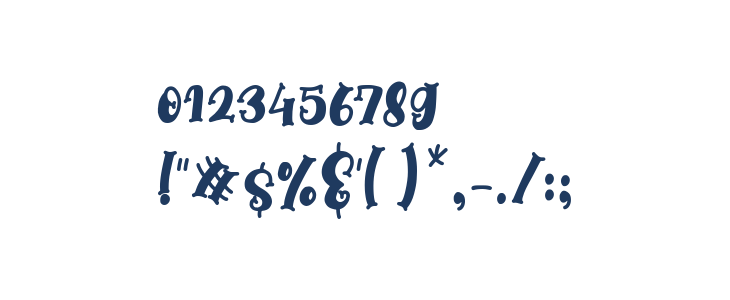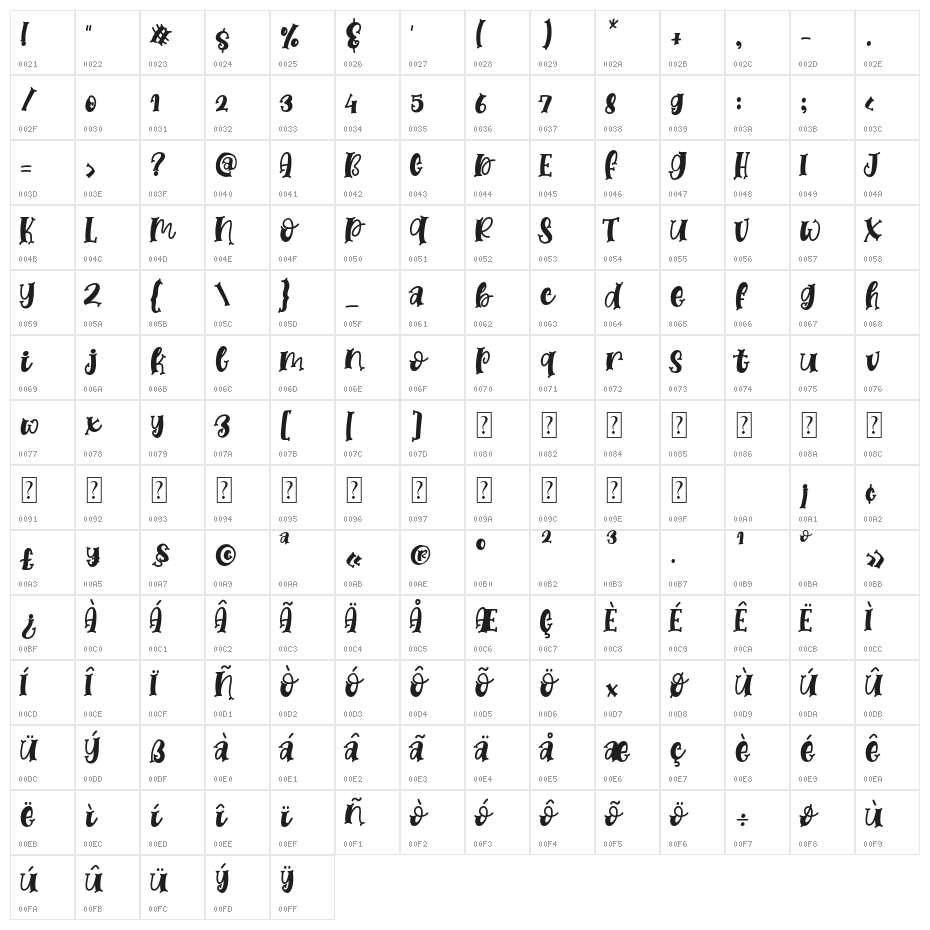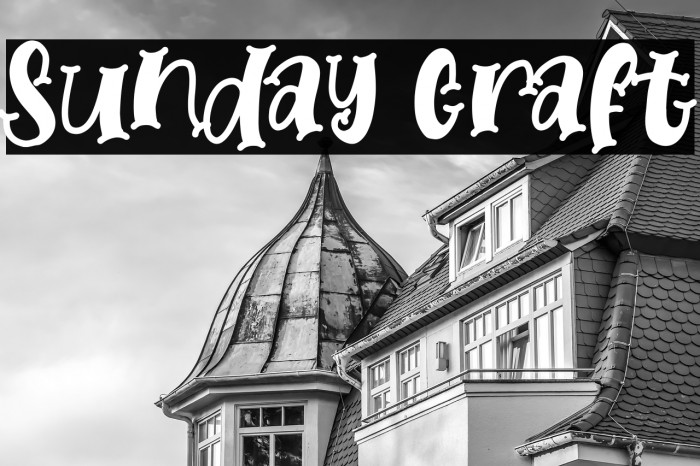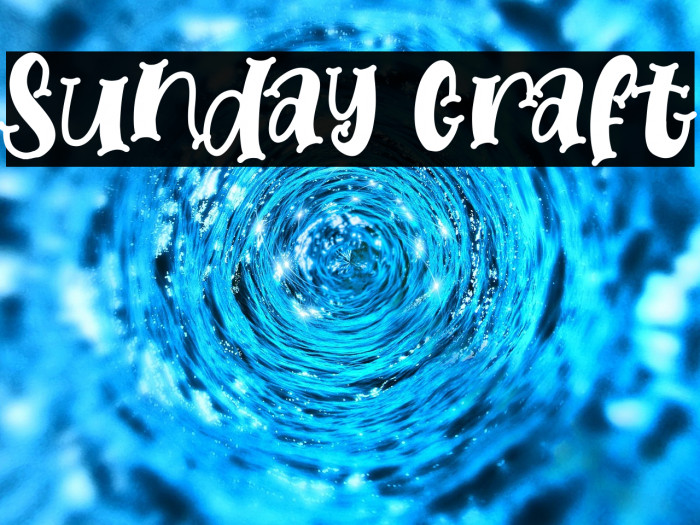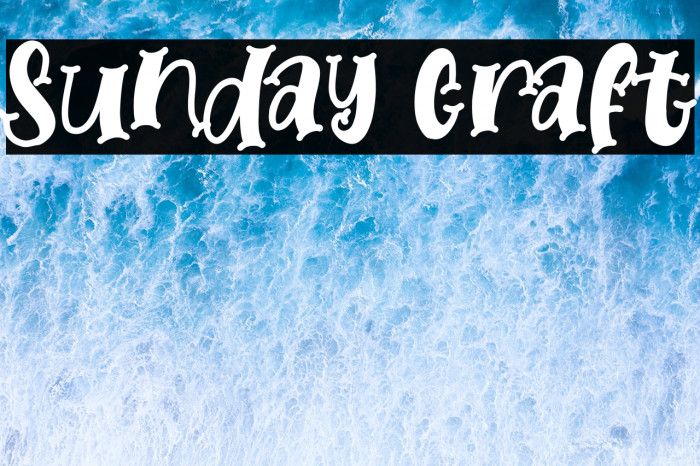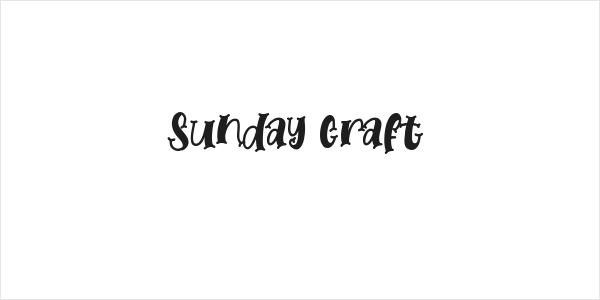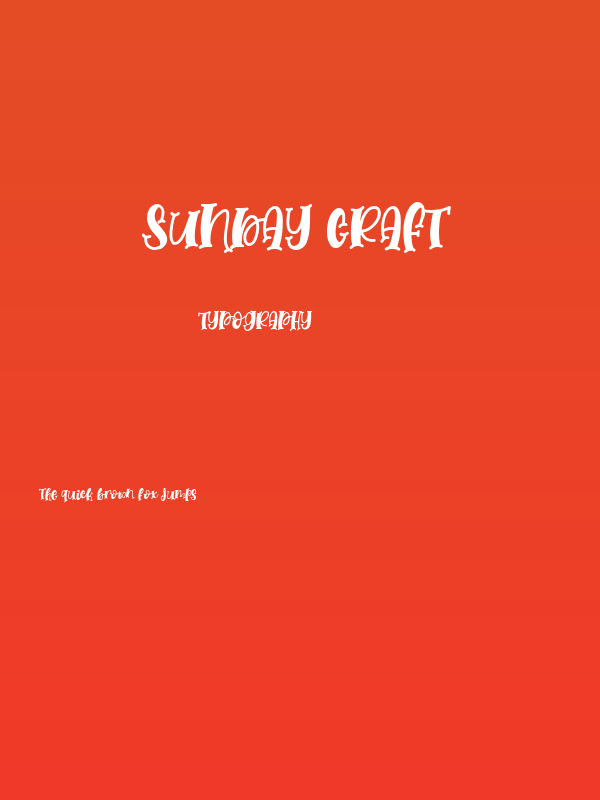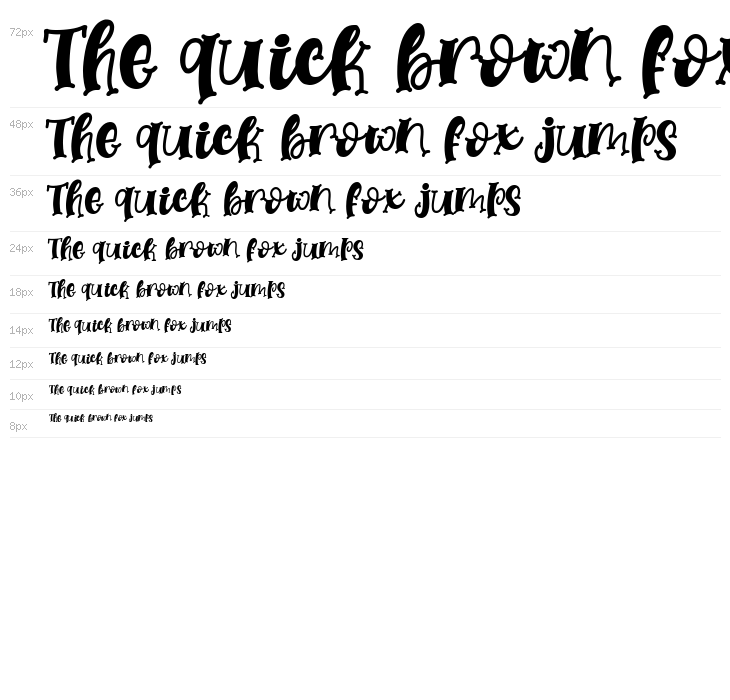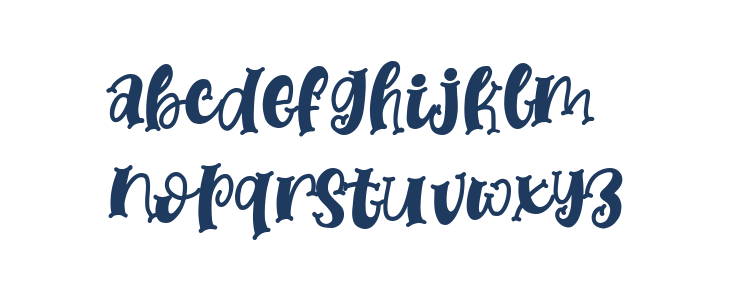
Sunday Craft Font
Sunday Craft Description
This font features a playful and whimsical style with a hand-drawn appearance. The letters are bold and have a slightly irregular form, giving them a lively and dynamic feel. The uppercase and lowercase letters maintain a consistent style, with some characters having unique flourishes and curves. The numbers and special characters are designed to match the overall aesthetic, making them suitable for creative and informal projects. The font's bold strokes and decorative elements make it stand out, perfect for capturing attention in various design contexts.